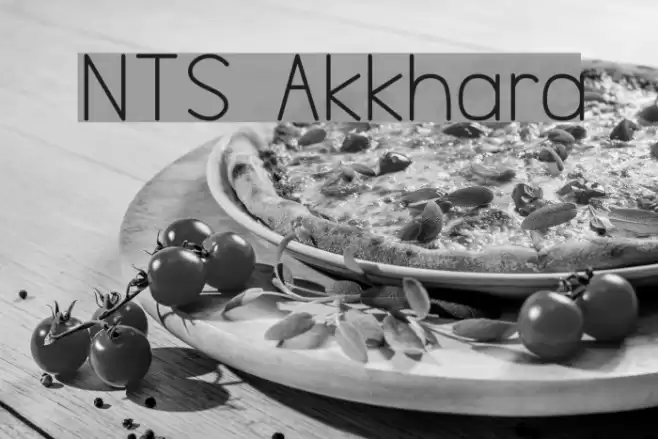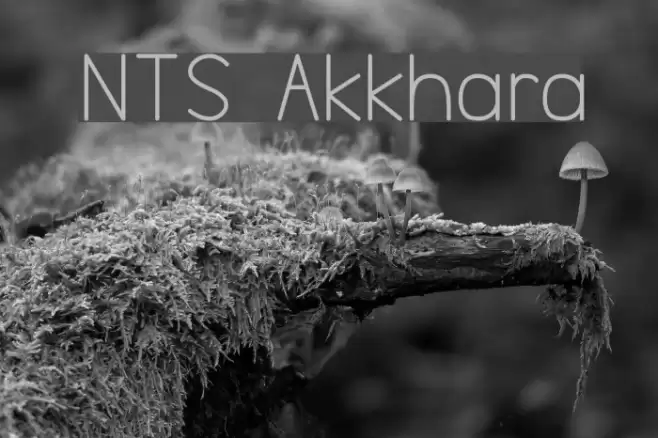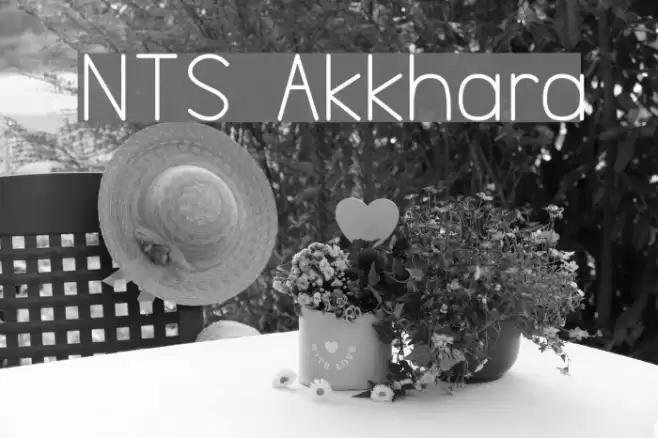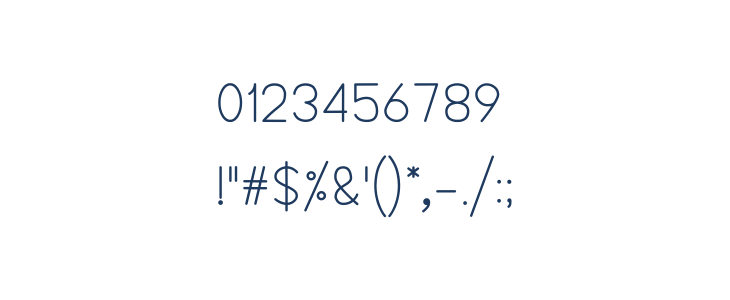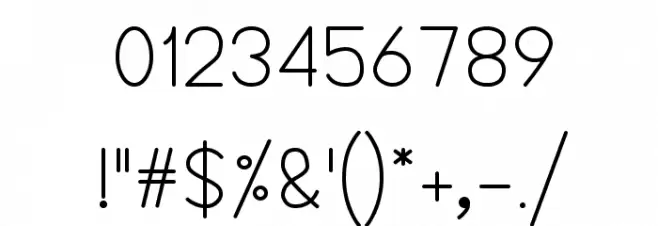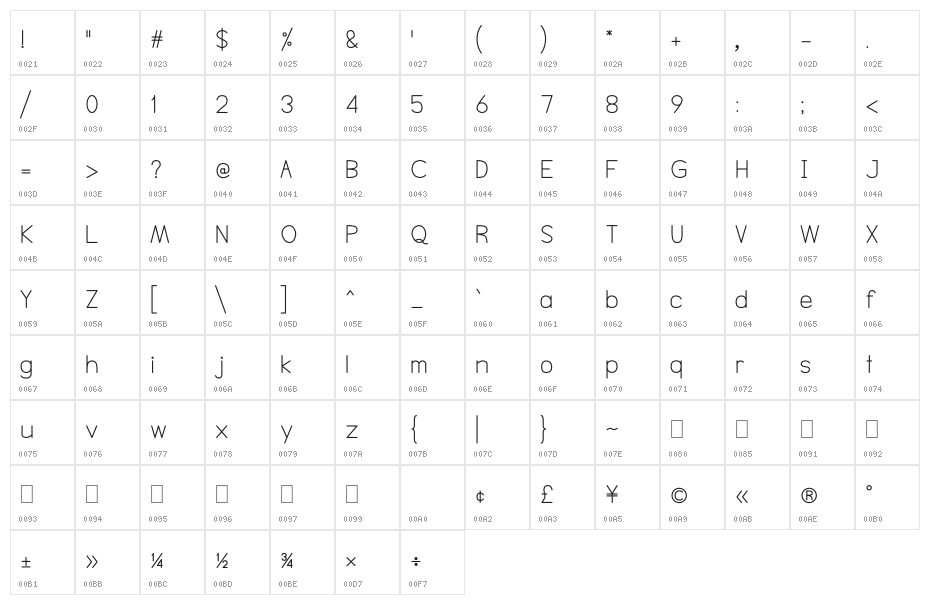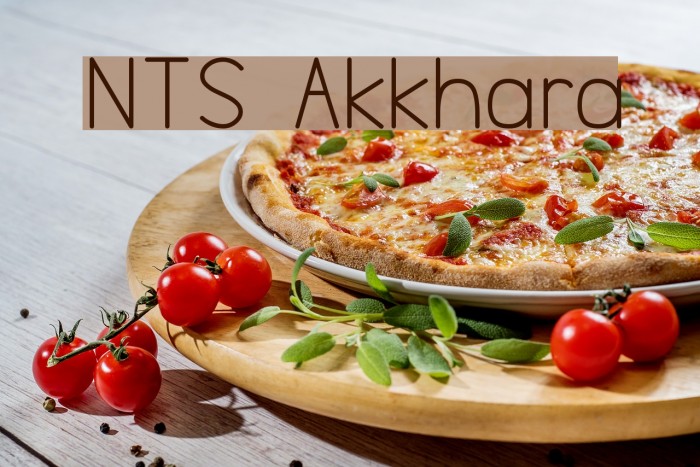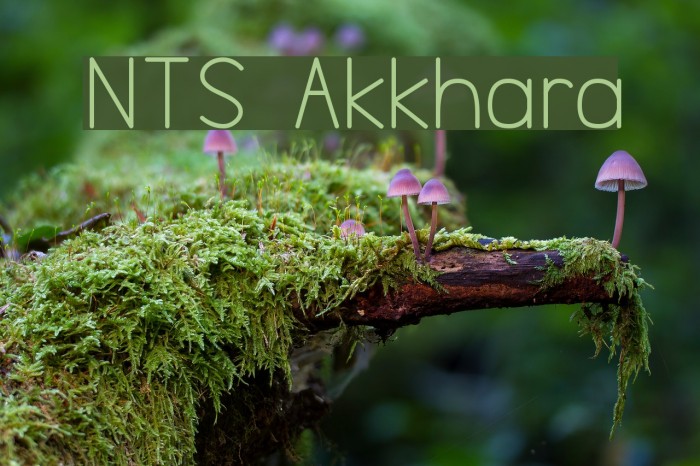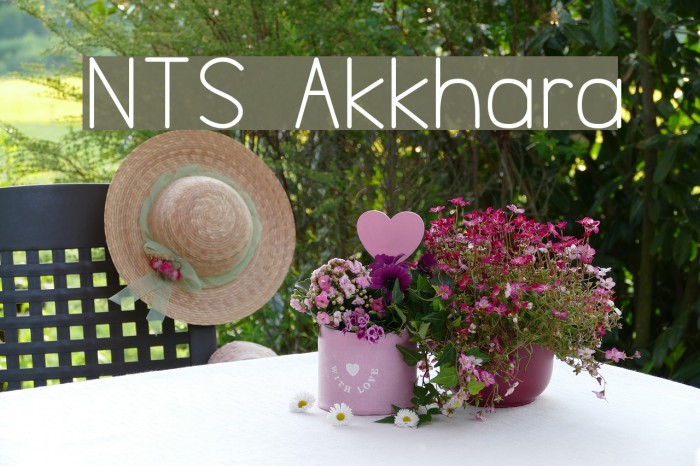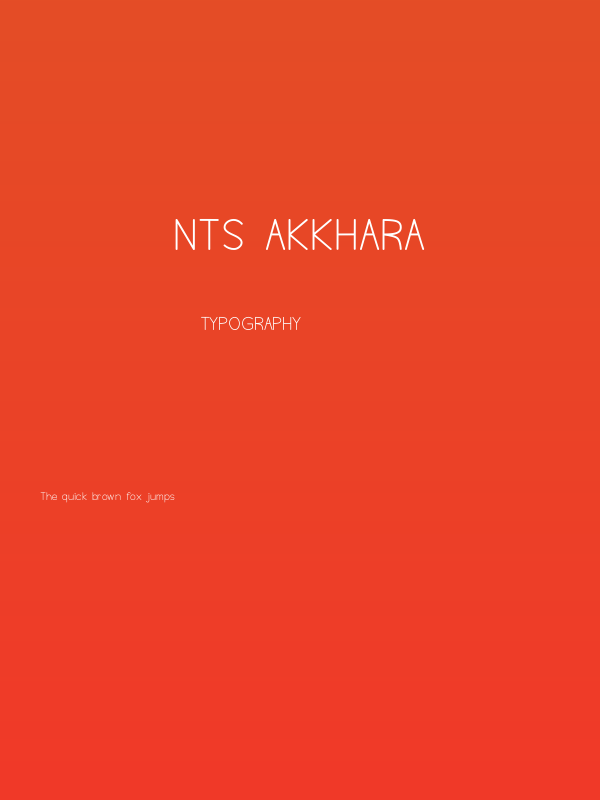
NTS Akkhara Font
NTS Akkhara Description
This font features a clean and modern sans-serif style with a geometric structure. The characters are evenly spaced, providing a balanced and harmonious appearance. The uppercase letters are slightly taller than the lowercase, maintaining a consistent line weight throughout. The numerals are clear and legible, matching the overall aesthetic of simplicity and functionality. Special characters are designed to blend seamlessly with the alphabet, ensuring versatility across various applications. The font's minimalistic design makes it suitable for contemporary projects.
A modern, geometric sans-serif font with clean lines and balanced spacing from Uncategorized fonts.
- Proposed Projects: Ideal for branding, web design, editorial layouts, and user interfaces due to its clarity and modern appeal.